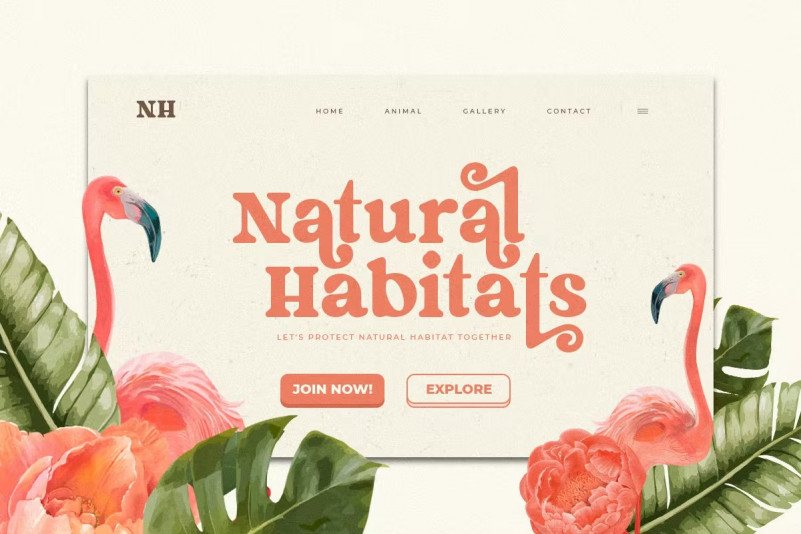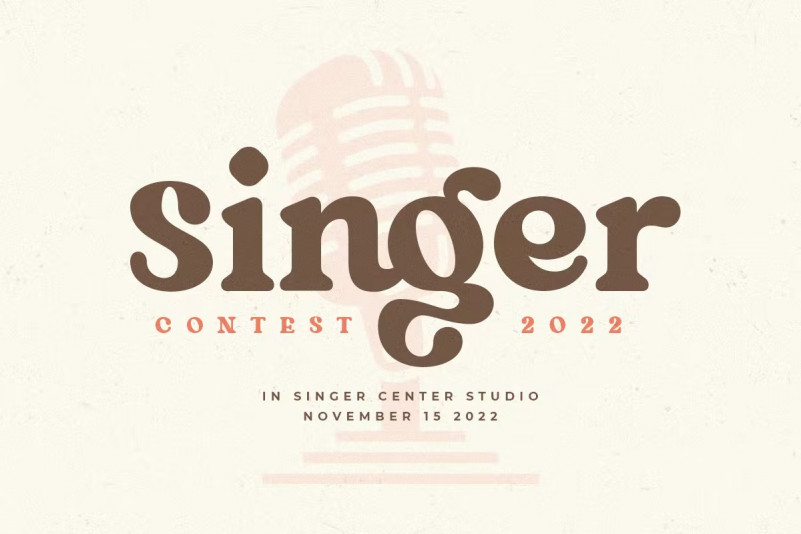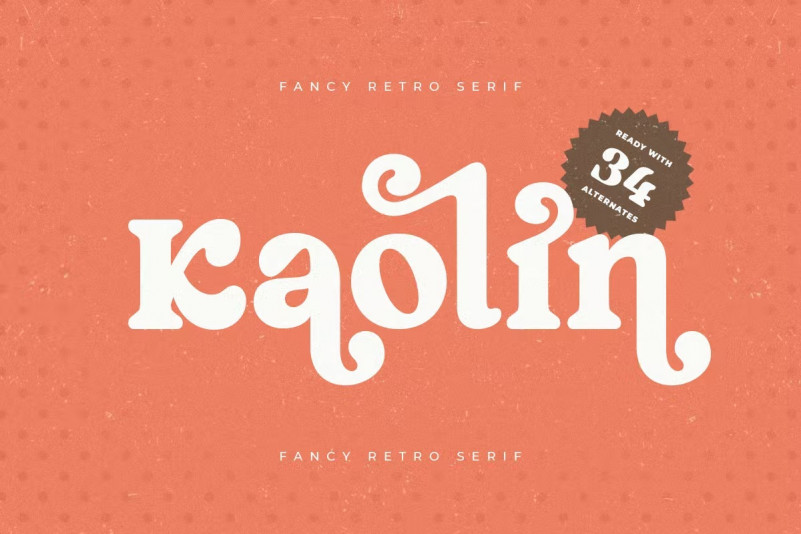
Kaolin Font
A New Fancy Retro font that we created special for Unique branding needs, with extra alternates in unique style that ready to add value of your brand. It’s so nice to leverage designer or product owner that need solutions to make their design look more unique and vintage.